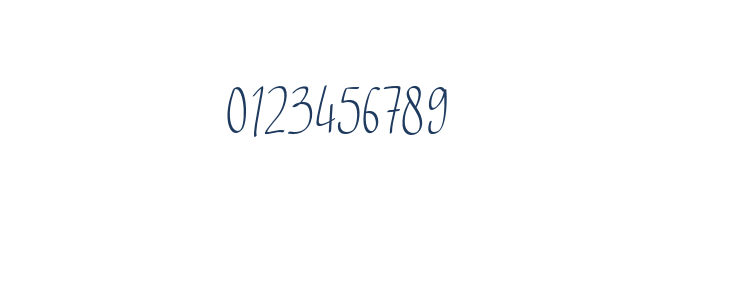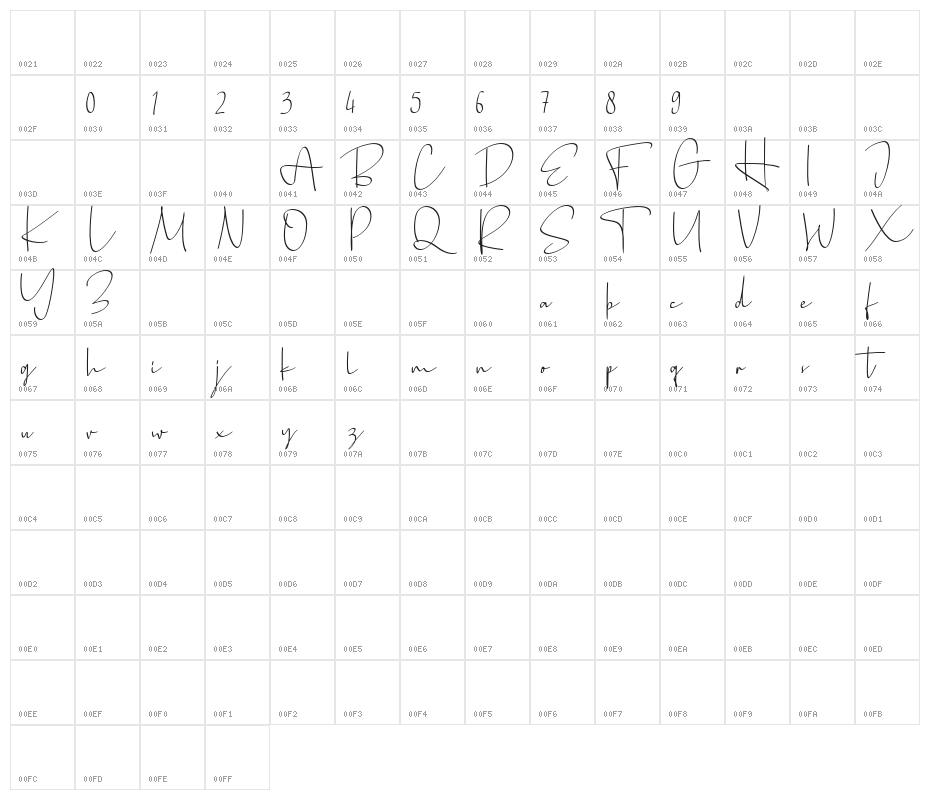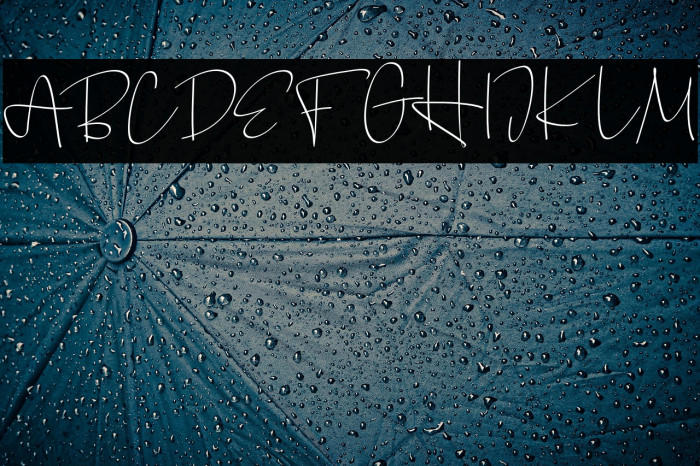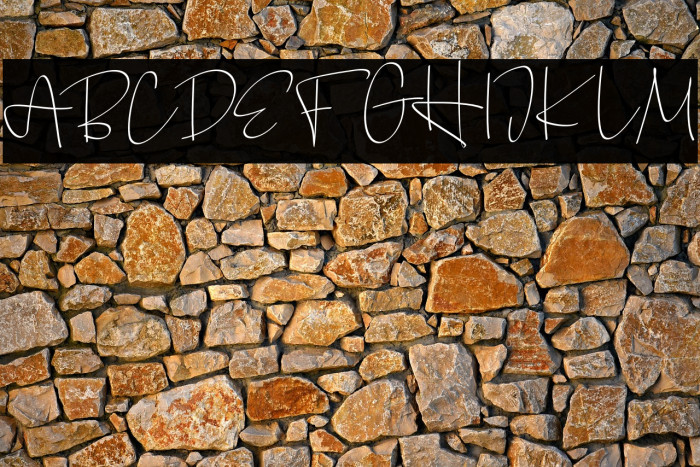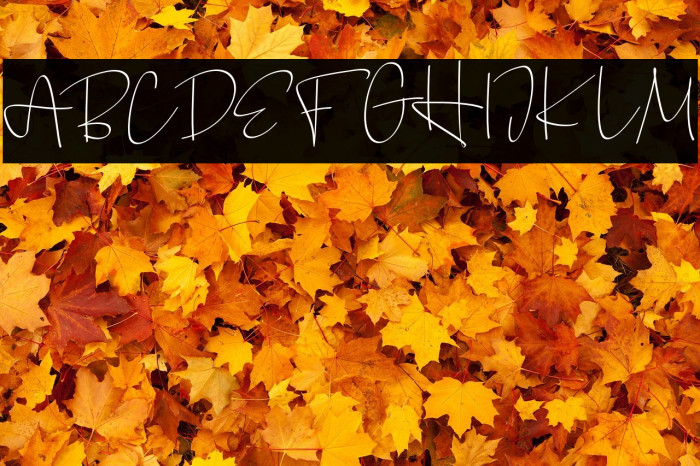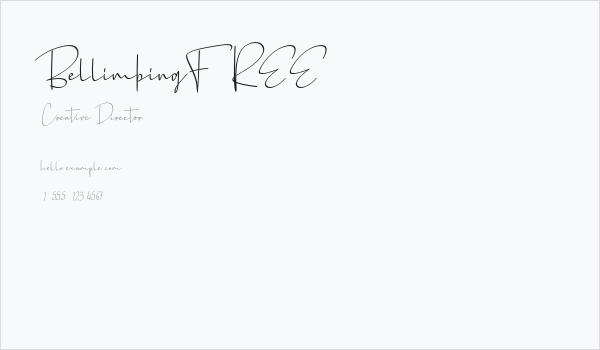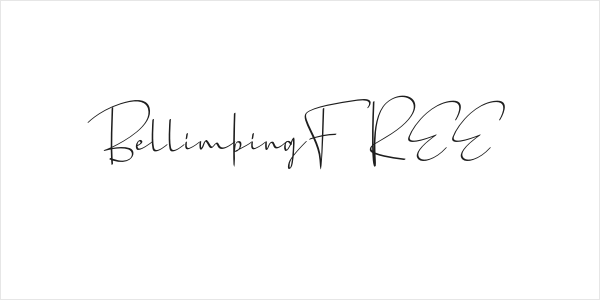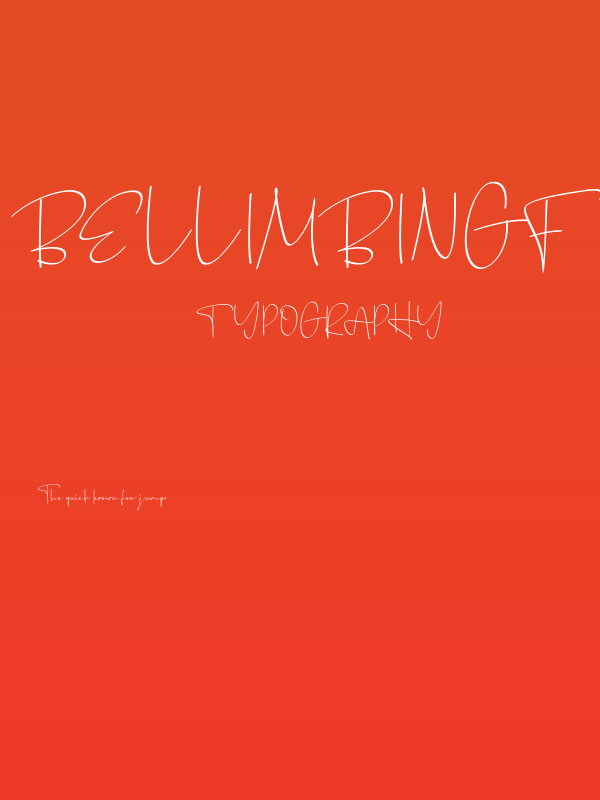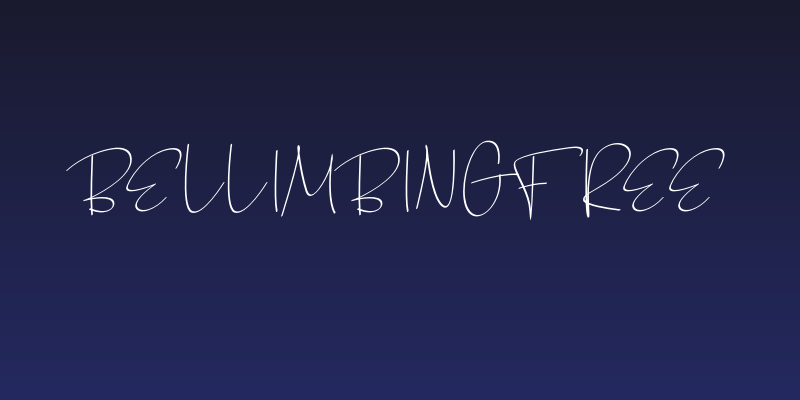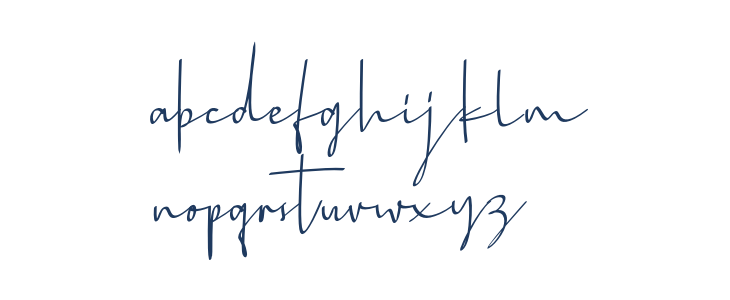
BellimbingFREE Font
BellimbingFREE Description
This font features a playful and dynamic handwritten style, characterized by its fluid and slightly irregular strokes. The uppercase letters are tall and slender, with a casual, free-flowing appearance that suggests a sense of movement and spontaneity. The lowercase letters maintain this lively aesthetic, with some letters extending below the baseline, adding to the font's whimsical charm. The numerals are consistent with the overall style, offering a cohesive look across all characters. This font's unique personality makes it suitable for projects that require a personal touch or an informal, creative vibe.
| Use Case | Logos, Invitations, Creative projects |
| Proposed Projects | Ideal for greeting cards, invitations, personal branding, and creative projects that require a personal touch. |